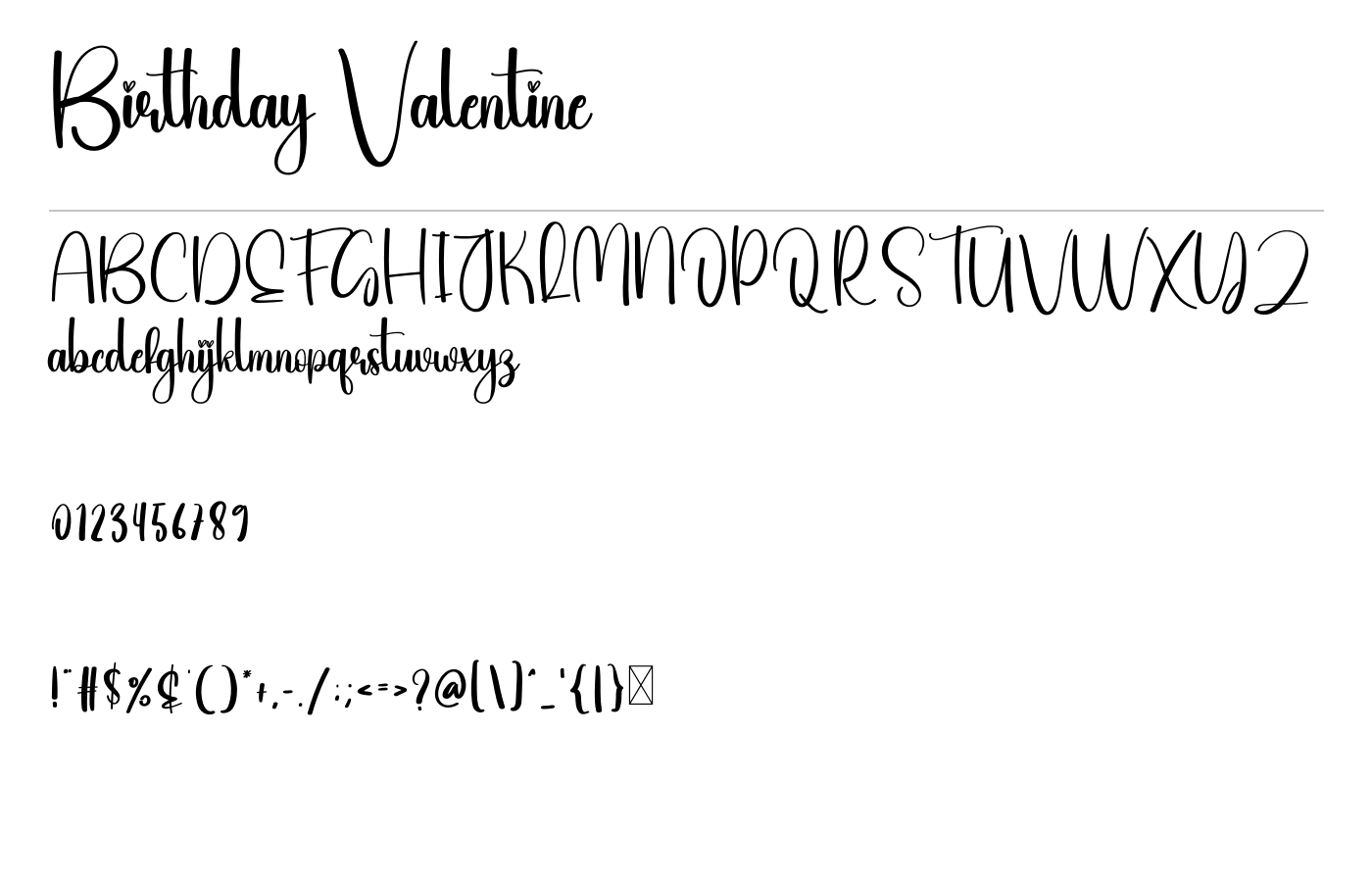
Birthday Valentine is a playful and elegant handwritten script font featuring tall, slender letterforms with smooth, varying strokes and charming flourishes. Its light weight and casual, friendly style make it perfect for invitations, greeting cards, and branding that seeks a personal, warm touch. This font works best in decorative headlines and creative projects where a delicate, approachable feel is desired.
Birthday Valentine Font